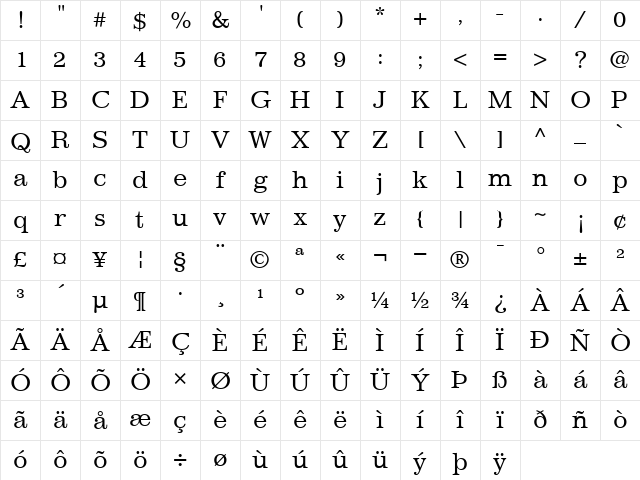
12Impressum**Roman05134 Roman Free Font
12Impressum**Roman05134 Roman
Design Context for 12Impressum**Roman05134
12Impressum**Roman05134 is a composed and adaptable typeface that performs quietly and consistently across a wide range of design contexts.